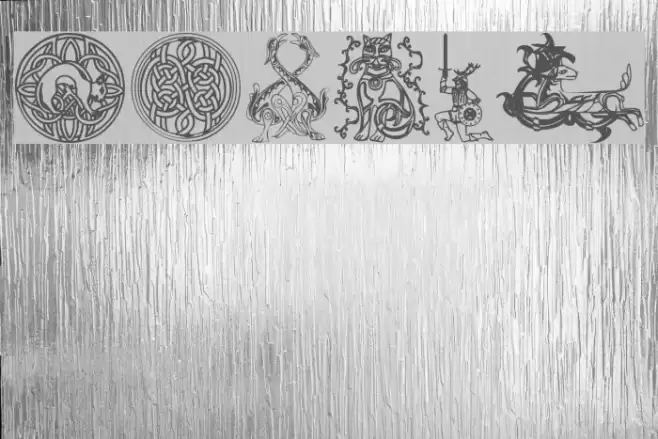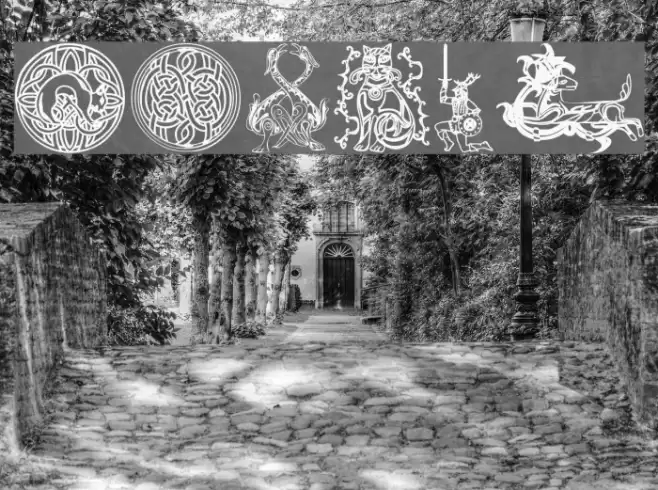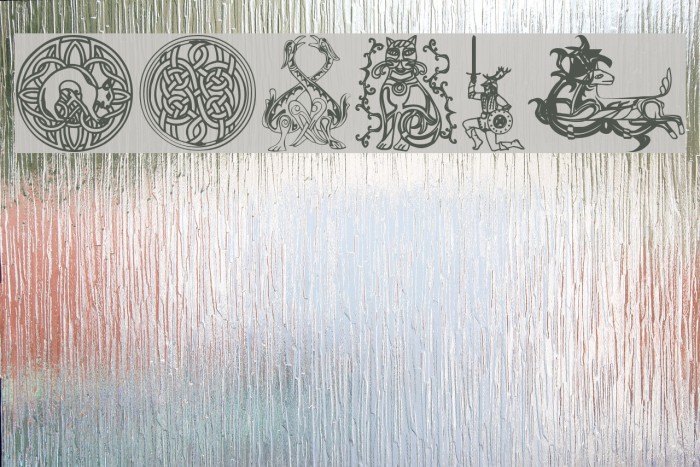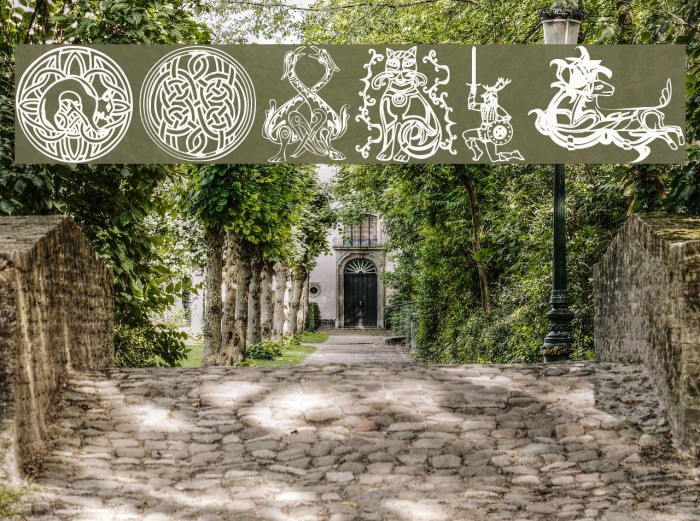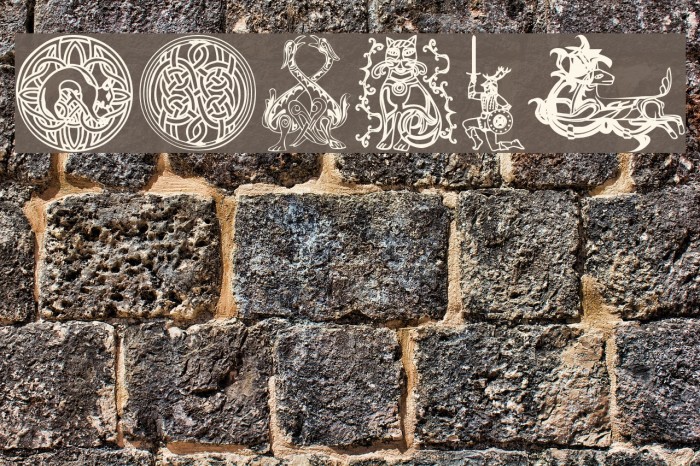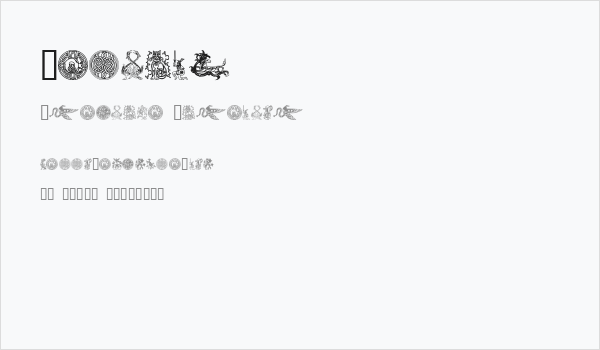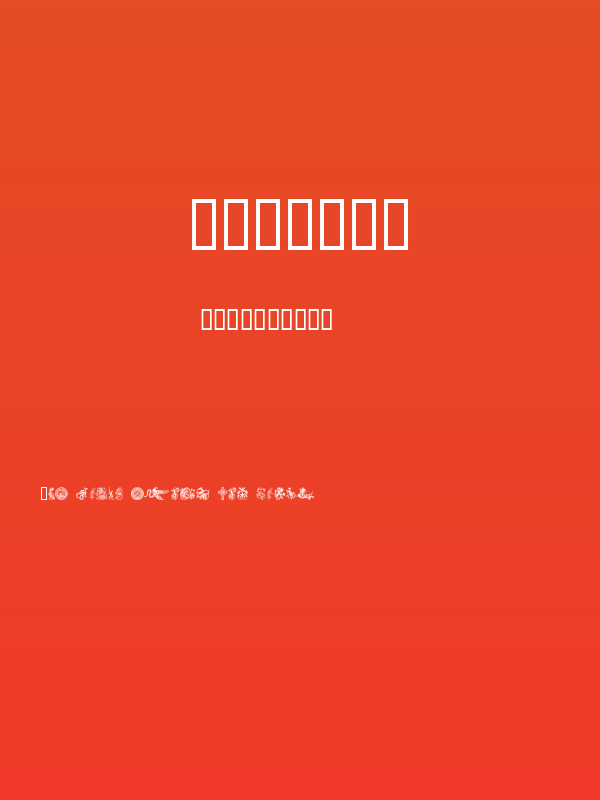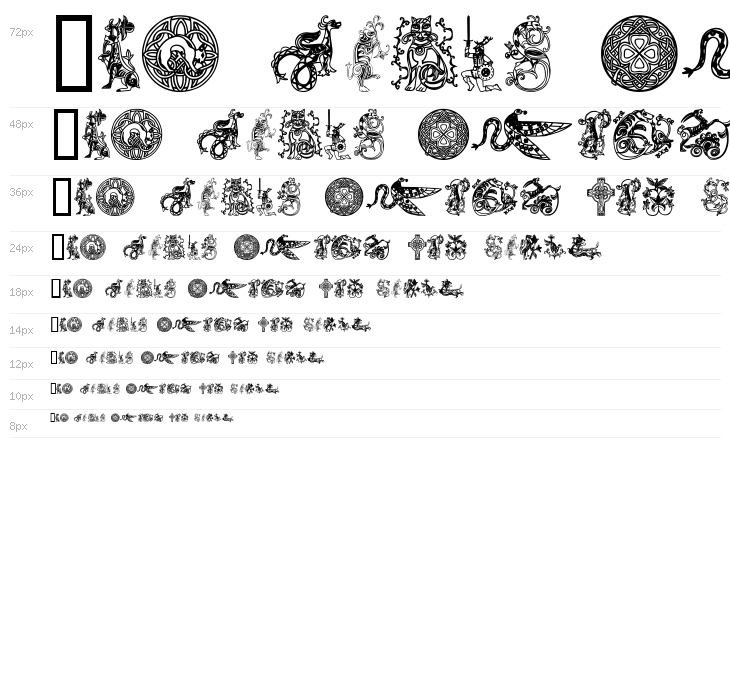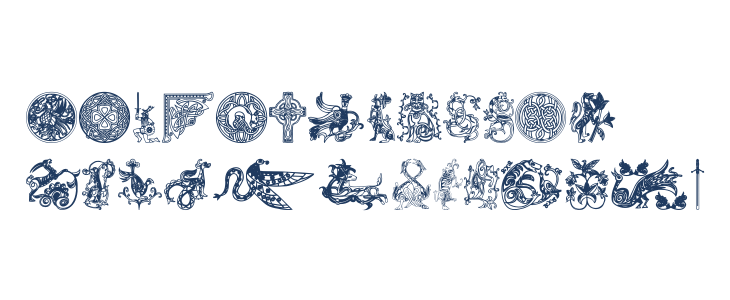
Celtics Font
Celtics Description
This decorative font is inspired by traditional Celtic art, featuring intricate patterns and motifs reminiscent of ancient manuscripts and stone carvings. Each character is adorned with elaborate designs, including interwoven knots, mythical creatures, and symbolic elements. The font captures the essence of Celtic heritage, offering a unique blend of historical and artistic appeal. Its detailed craftsmanship makes it ideal for projects that require a touch of elegance and cultural richness. The characters are highly stylized, with a focus on ornamental detail, making them suitable for decorative purposes rather than standard text applications.
A decorative font inspired by traditional Celtic art with intricate patterns and motifs from Decorative fonts.
- Proposed Projects: Ideal for projects such as invitations, book covers, posters, and any design requiring a historical or cultural theme.
- Overall Style: Vintage
- Use Case: Logos, Headlines, Decorative text